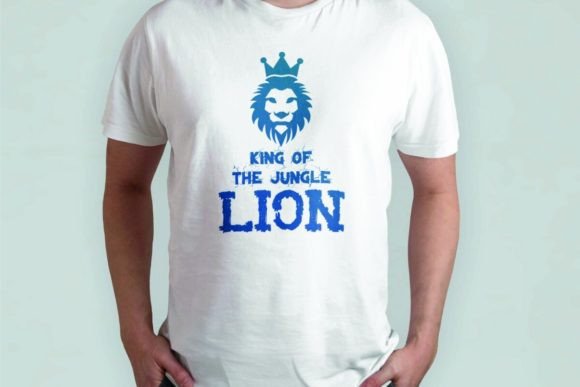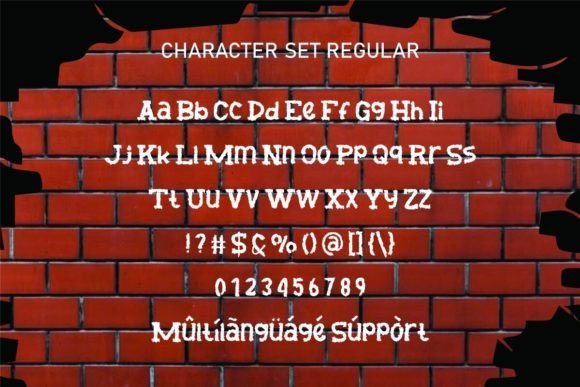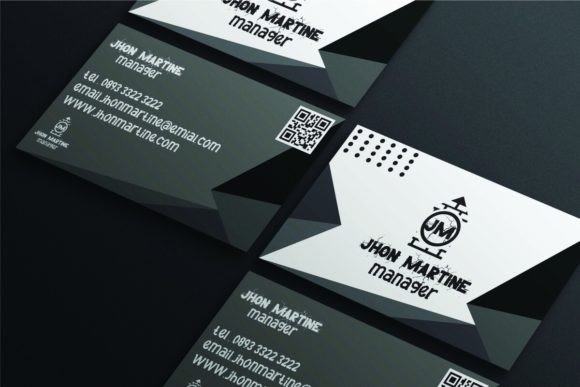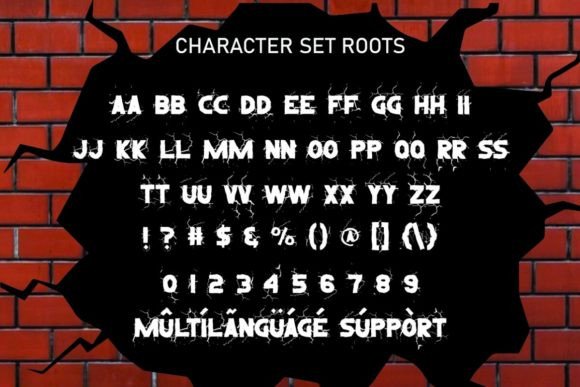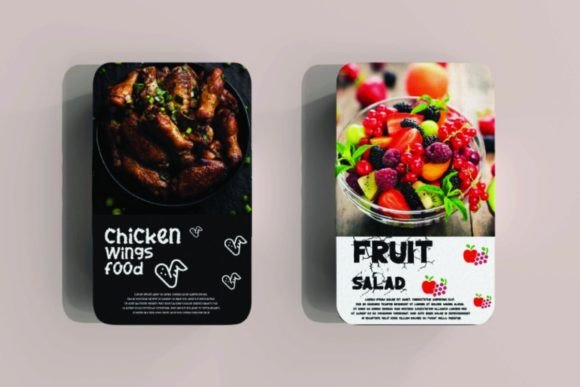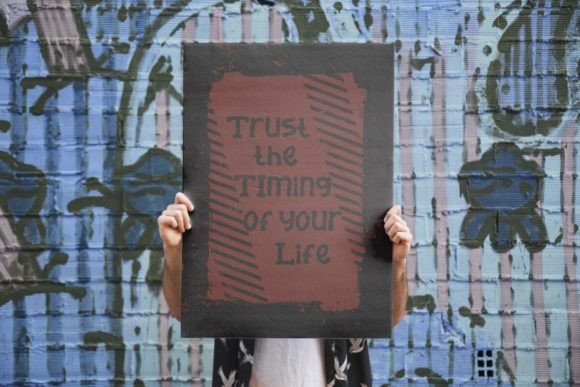
Cracked Wall Font: Elevate Your Designs with a Unique Textured Twist
Are you tired of using the same old fonts in your designs? Look no further than the Cracked Wall Font, a special display font that adds a touch of grit and texture to your work. With two distinct options – textured and cracked – this font is perfect for designers and crafters looking to add some edge to their creations.
What is Cracked Wall Font?
Cracked Wall Font is a display font designed to give your text a rugged, weathered look. The font comes in two variations: textured and cracked. The textured version features a rough, stone-like texture, while the cracked version has a more distressed, broken look. Both options are designed to be easy to read, making them perfect for use in a variety of applications.
Key Features of Cracked Wall Font
- Two font options: Textured and cracked, allowing you to choose the look that best suits your design.
- Gripping characters: The characters in both fonts have a gripping, moss and root variation that adds to their textured look.
- Easy to read: Despite their distressed look, both fonts are easy to read, making them perfect for use in body text or headlines.
- Versatile: Cracked Wall Font can be used in a wide range of industries, including accessories, café, event organizer, fashion, film, game, music, printing, restaurant, sport, and more.
Uses for Cracked Wall Font
Cracked Wall Font is a versatile font that can be used in a variety of applications. Here are a few ideas to get you started:
- Headlines and titles: Use Cracked Wall Font to add a bold, eye-catching headline to your design.
- Logos and branding: Create a unique logo or brand identity with the Cracked Wall Font.
- Posters and flyers: Add a distressed look to your posters and flyers with the Cracked Wall Font.
- Social media graphics: Use the Cracked Wall Font to create eye-catching social media graphics.
- Packaging: Add a rugged, textured look to your packaging with the Cracked Wall Font.
Tips for Using Cracked Wall Font
Here are a few tips for getting the most out of the Cracked Wall Font:
- Experiment with different colors: The Cracked Wall Font looks great in a variety of colors, so don’t be afraid to experiment.
- Use it sparingly: While the Cracked Wall Font is eye-catching, it can be overwhelming if used too much. Use it sparingly to add emphasis to your design.
- Pair it with a simple font: Pair the Cracked Wall Font with a simple font to create contrast and add visual interest to your design.
Cracked Wall Font is a unique and versatile font that can add a touch of grit and texture to your designs. With its two distinct options – textured and cracked – this font is perfect for designers and crafters looking to add some edge to their creations. Whether you’re creating a bold headline, a unique logo, or eye-catching social media graphics, the Cracked Wall Font is a great choice.